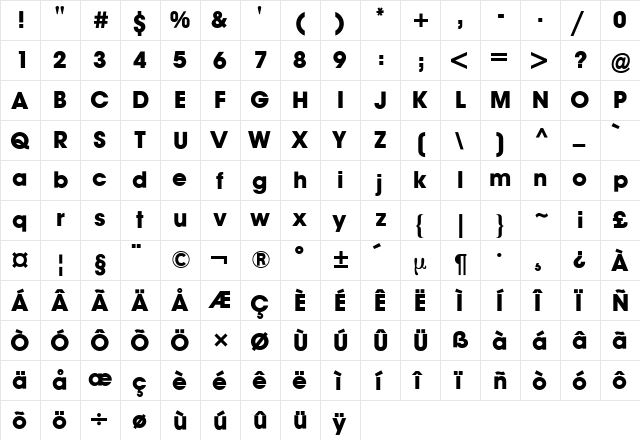
Avant Garde 2 BQ Roman
Design Context for Avant Garde 2 BQ Typeface
Avant Garde 2 BQ takes a measured approach to typography — its balanced proportions and neutral character make it a reliable workhorse for both digital and print work.